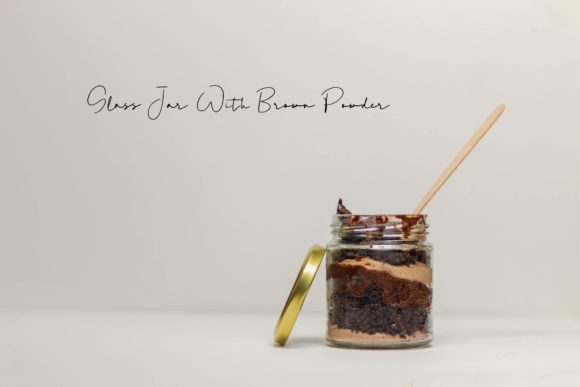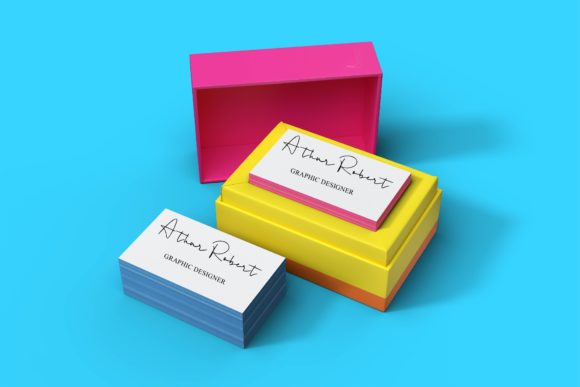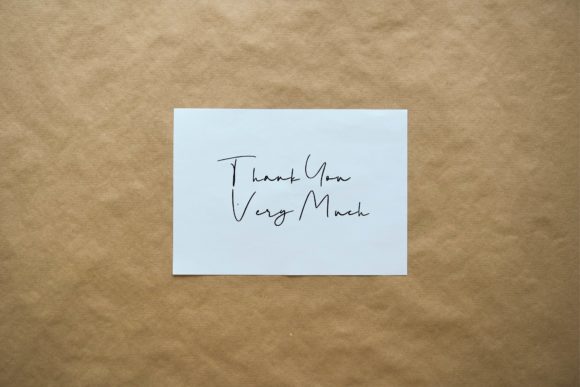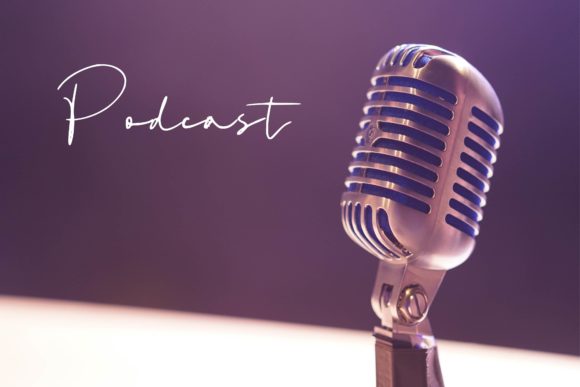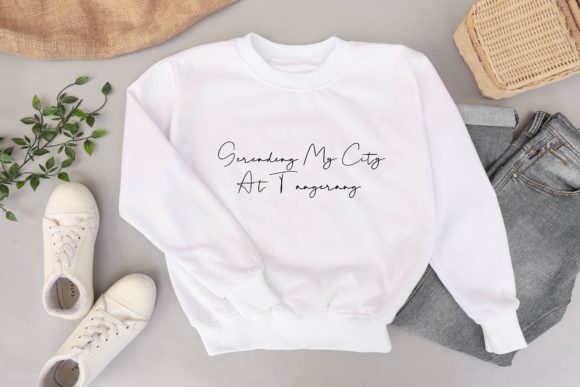
Discover the Elegance of Gerendeng Font: A Perfect Choice for Fashion Branding and Editorial Designs
In the world of typography, fonts play a crucial role in conveying the tone and aesthetic of a brand or design. For designers and crafters looking for a font that exudes elegance and sophistication, Gerendeng Font is an excellent choice. This thin lettered and delicate handwritten font is defined by its smooth curves, making it perfect for fashion branding or editorial designs.
What is Gerendeng Font?
Gerendeng Font is a beautifully crafted handwritten font that features thin and delicate lettering. Its smooth curves and flowing lines give it a unique and elegant appearance, making it stand out from other fonts. The font is designed to be versatile and can be used for a variety of design projects, from fashion branding to editorial designs.
Characteristics of Gerendeng Font
Gerendeng Font has several characteristics that make it an excellent choice for designers and crafters. Some of its key features include:
- Thin and delicate lettering: Gerendeng Font features thin and delicate lettering that gives it a elegant and sophisticated appearance.
- Smooth curves: The font’s smooth curves and flowing lines make it perfect for designs that require a touch of elegance.
- Handwritten style: Gerendeng Font has a handwritten style that gives it a personal and unique touch.
- Versatile: The font is versatile and can be used for a variety of design projects, from fashion branding to editorial designs.
Uses of Gerendeng Font
Gerendeng Font is perfect for a variety of design projects, including:
- Fashion branding: The font’s elegant and sophisticated appearance makes it perfect for fashion branding, including logos, labels, and packaging.
- Editorial designs: Gerendeng Font is also suitable for editorial designs, such as magazines, newspapers, and books.
- Stationery: The font can be used for designing stationery, including invitations, greeting cards, and letters.
- Digital designs: Gerendeng Font can also be used for digital designs, such as website headers, social media graphics, and email templates.
Why Choose Gerendeng Font?
There are several reasons why designers and crafters should choose Gerendeng Font for their projects. Some of the benefits of using this font include:
- Elegant and sophisticated appearance: Gerendeng Font has an elegant and sophisticated appearance that can elevate the look of any design project.
- Versatile: The font is versatile and can be used for a variety of design projects.
- Easy to read: Gerendeng Font is easy to read, making it perfect for designs that require a clear and concise message.
- Unique and personal touch: The font’s handwritten style gives it a unique and personal touch that can help designers and crafters stand out from the crowd.
How to Use Gerendeng Font
Using Gerendeng Font is easy and straightforward. Here are some tips on how to use the font effectively:
- Pair it with other fonts: Gerendeng Font can be paired with other fonts to create a unique and interesting contrast.
- Use it for headings and titles: The font is perfect for headings and titles, where its elegant and sophisticated appearance can be showcased.
- Experiment with different colors: Gerendeng Font can be used with different colors to create a unique and eye-catching design.
In conclusion, Gerendeng Font is a beautiful and elegant handwritten font that is perfect for fashion branding and editorial designs. Its smooth curves and flowing lines give it a unique and sophisticated appearance that can elevate the look of any design project. With its versatility, ease of use, and unique and personal touch, Gerendeng Font is an excellent choice for designers and crafters looking for a font that can help them stand out from the crowd.